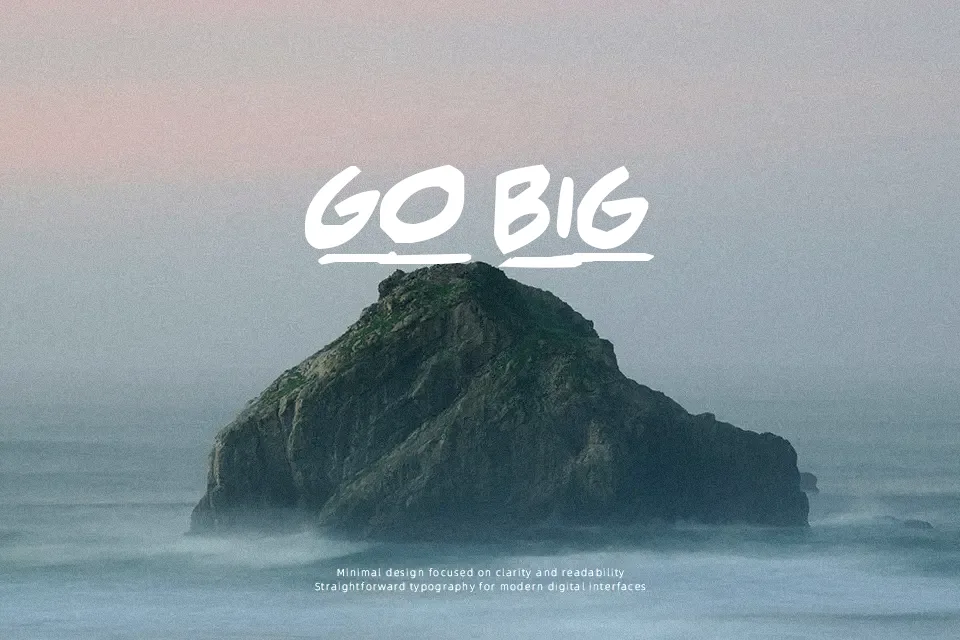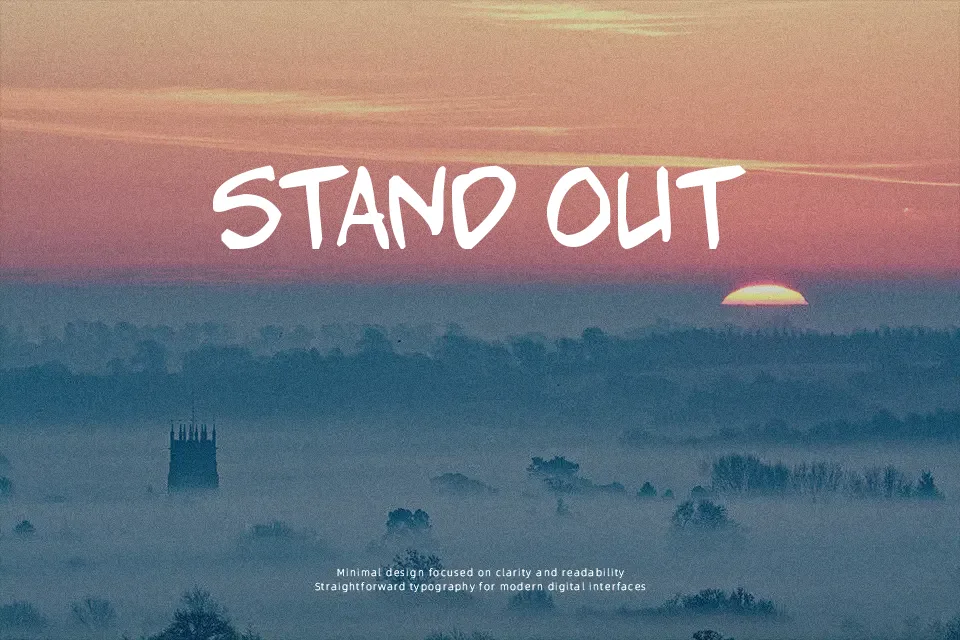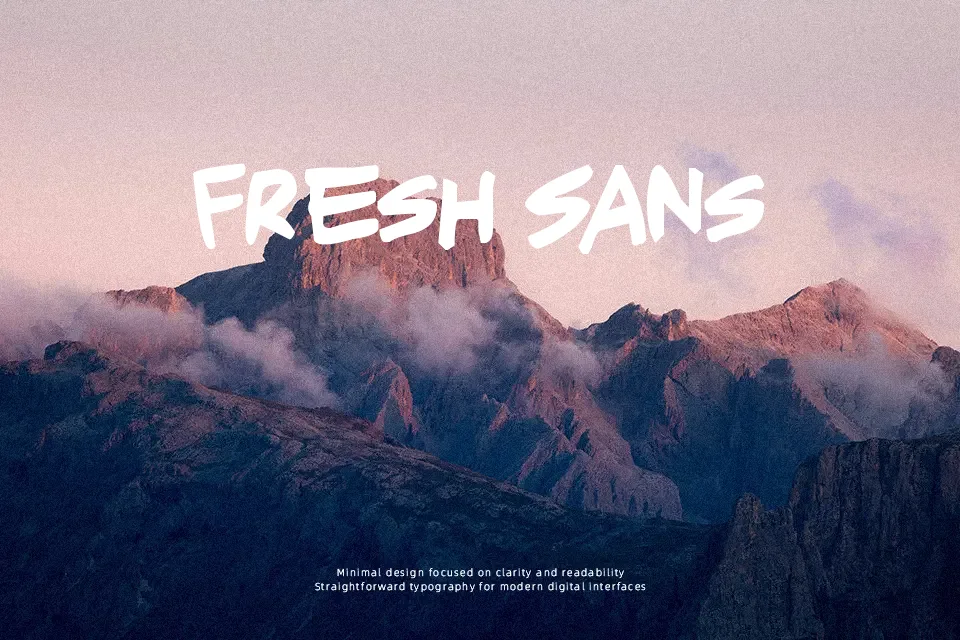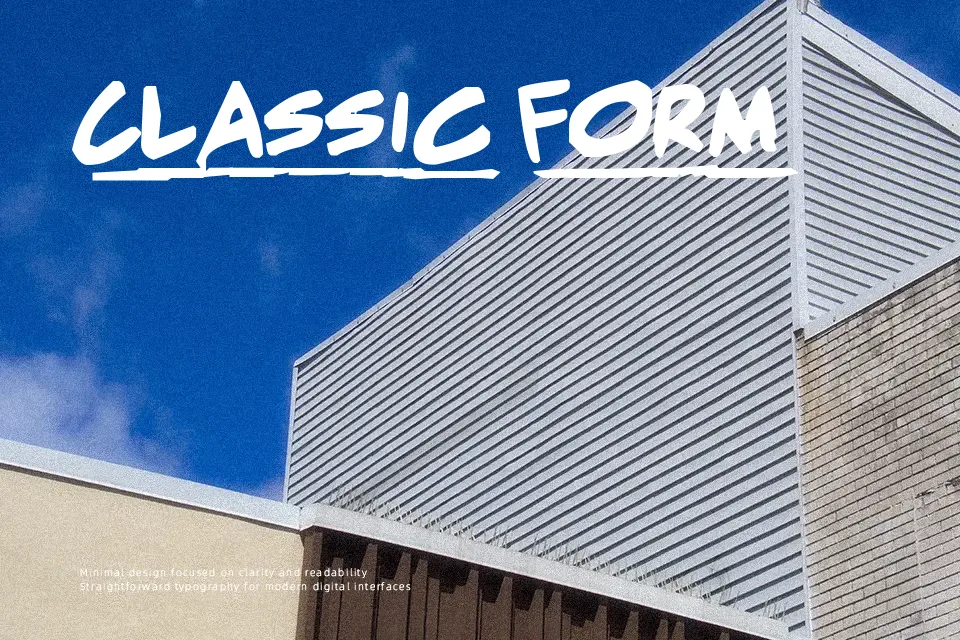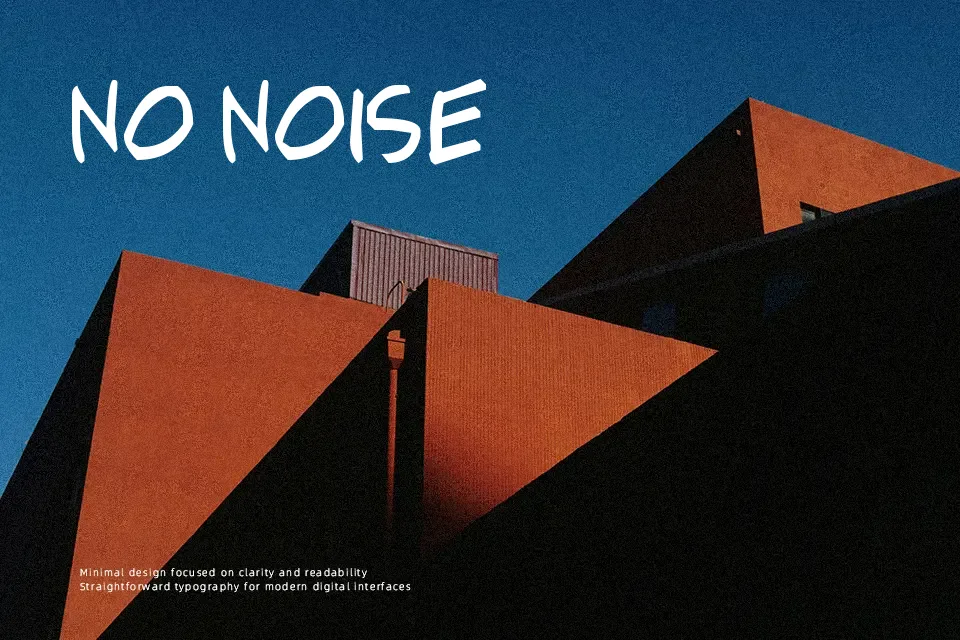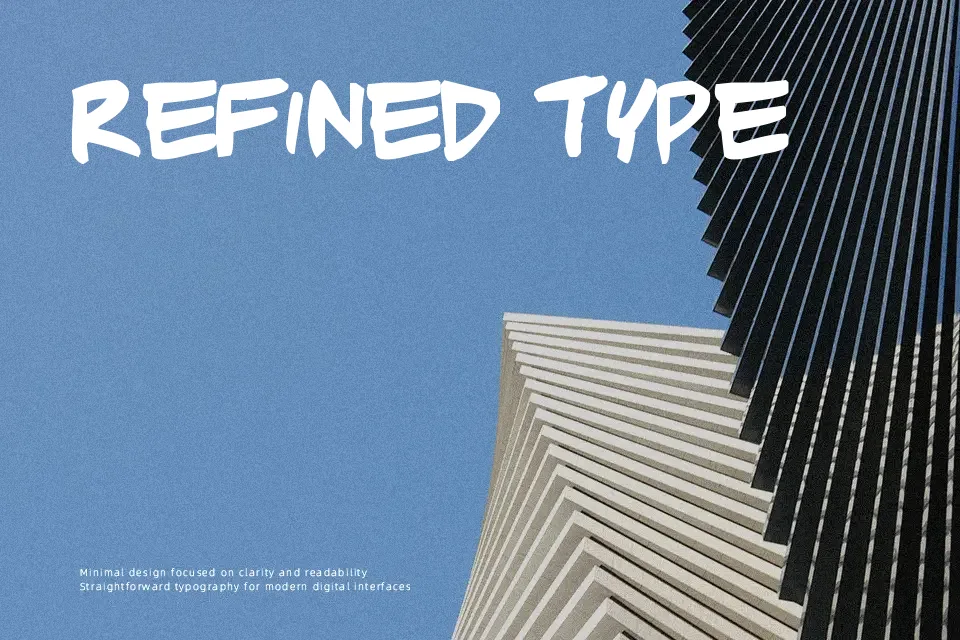
Adam Warren Pro Font
Designed by PressGang Studios
Adam Warren Pro carries the unmistakable rhythm of hand-lettered comic book text — slightly irregular baselines, confident stroke weight, and just enough ink-on-paper looseness to feel drawn rather than typed. Designed by Andeh Pinkard of PressGang Studios, it comes in regular, bold, and bold italic variants, giving creators basic typographic range for comic panel dialogue, captions, and cover lettering. It works particularly well in smaller display sizes where the hand-lettered texture reads naturally. That said, the style is firmly genre-specific — outside of comics, zines, or pop-art contexts, the lettering can feel out of place, and extended body copy in this face becomes visually fatiguing. Use it where the context earns the informality.
Best For:- Indie and webcomic speech bubble lettering
– Graphic novel chapter headers and title cards
– Zine and fan publication layouts
– Pop-art or manga-inspired social media graphics
Not Ideal For:- Long-form body text or editorial paragraphs
– Corporate branding or professional business materials
– Formal print documents and academic publications
– UI design requiring high legibility at small sizes
Perfect for editorial, headline, and logo, with a artistic and comic style.